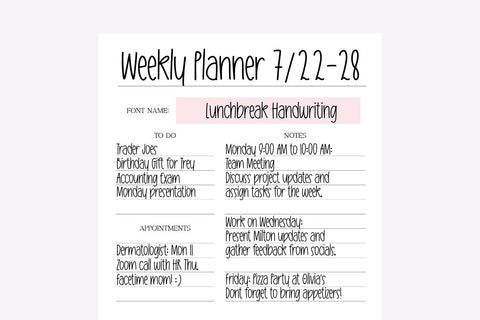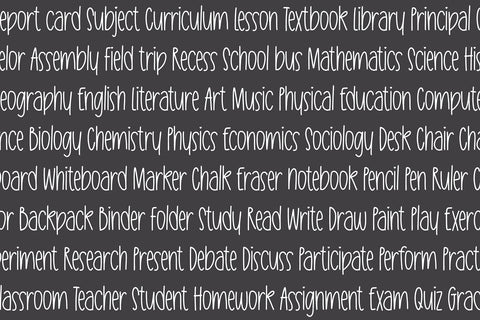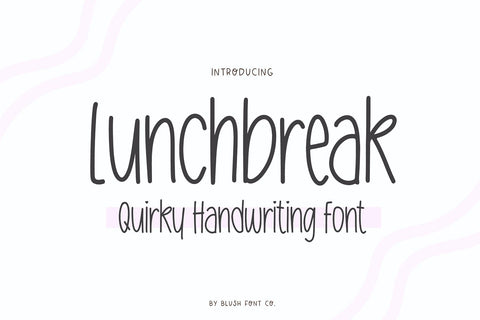
Lunchbreak Handwriting Font
LUNCHBREAK Tall and simple handwriting font.
This handwritten font is perfect for goodnotes, invitations, crafts, and more!